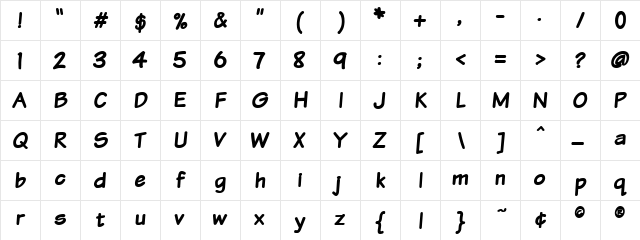
VTCSundaykomix Bold
| Designer | WolfBainX |
Design Context for VTCSundaykomix Typeface
VTCSundaykomix is a composed and adaptable typeface that performs quietly and consistently across a wide range of design contexts. The heavy weight commands attention and anchors typographic hierarchies.